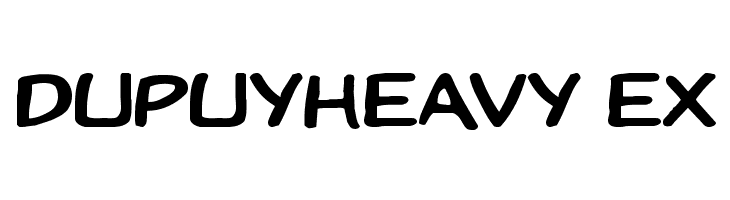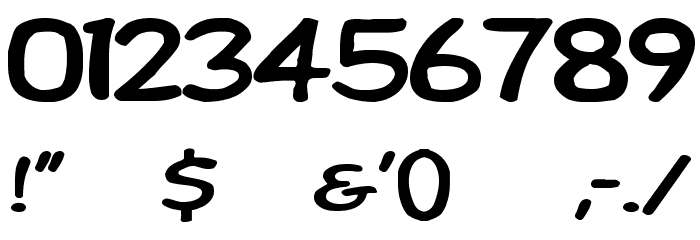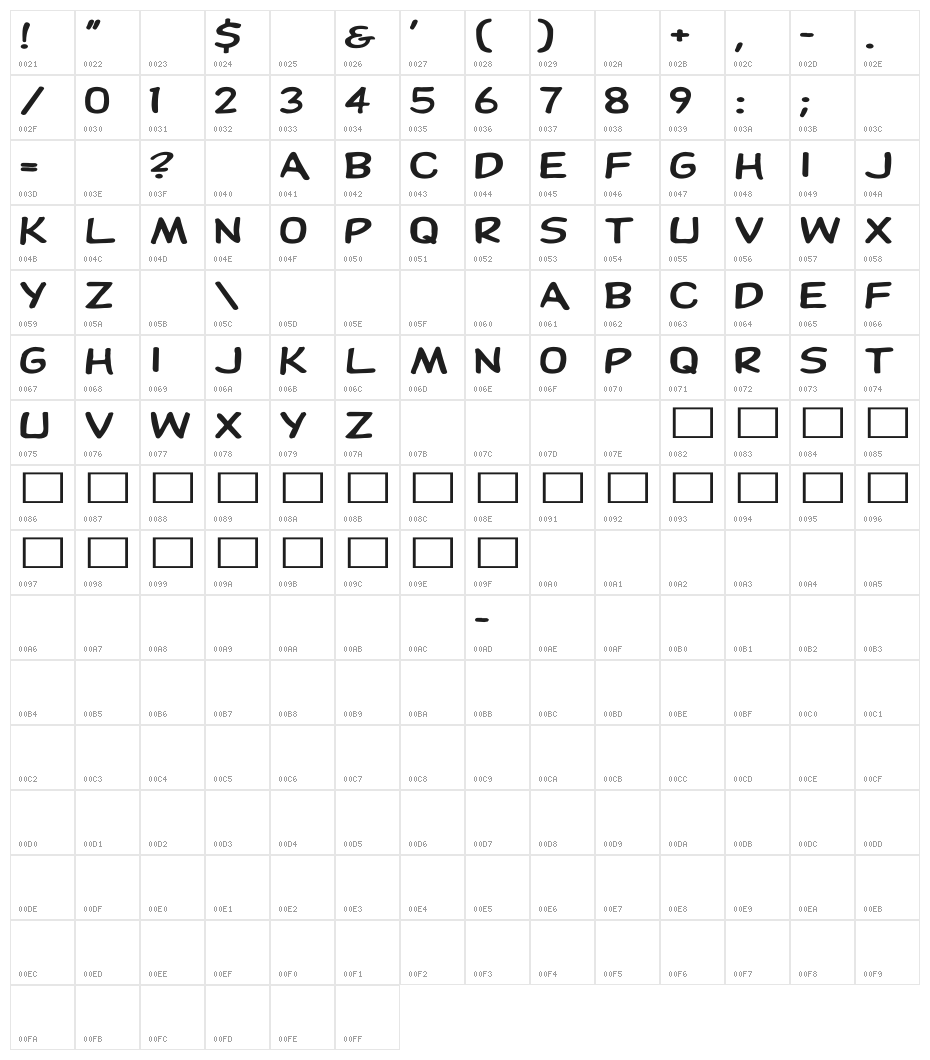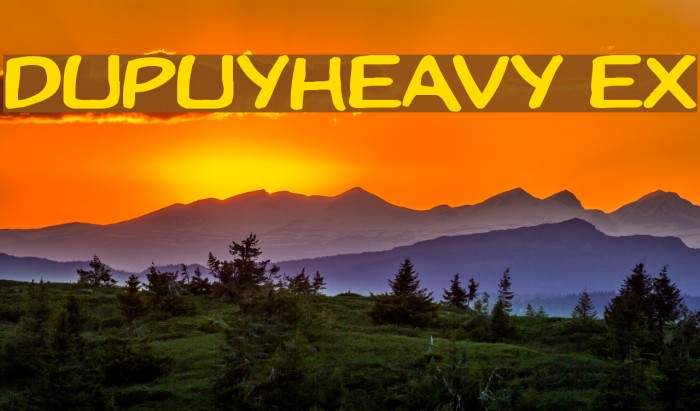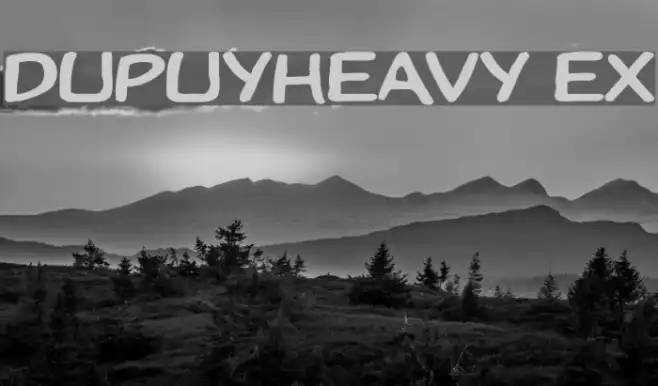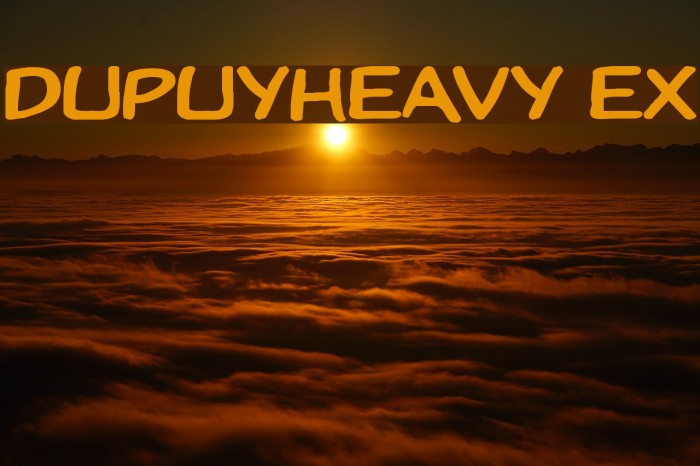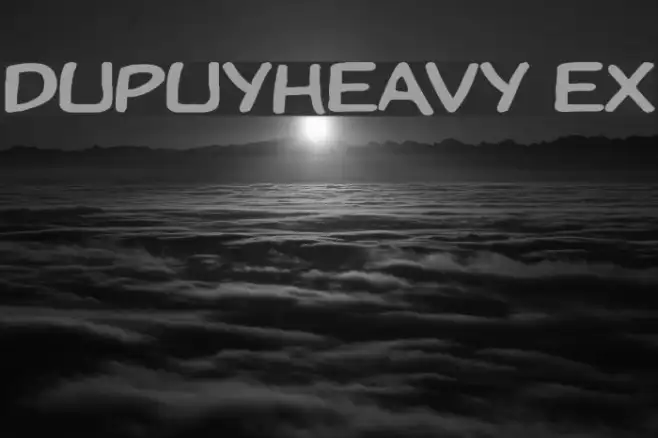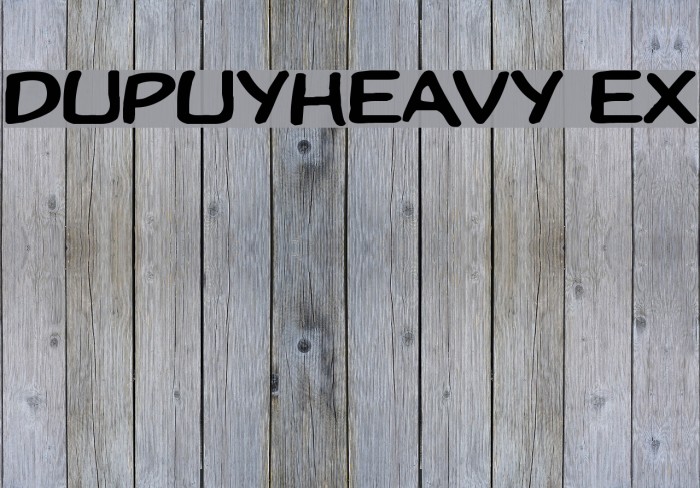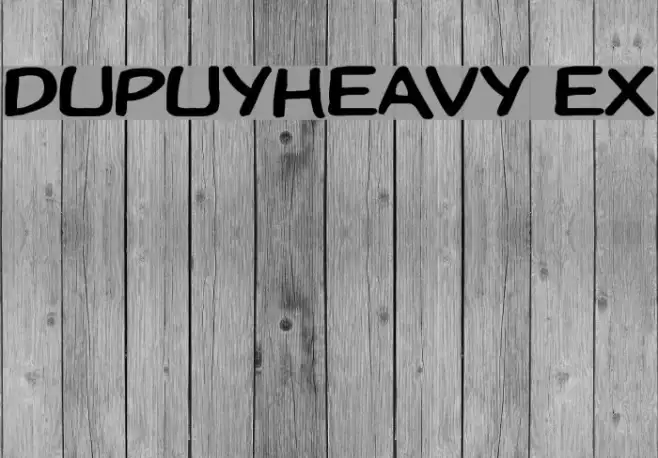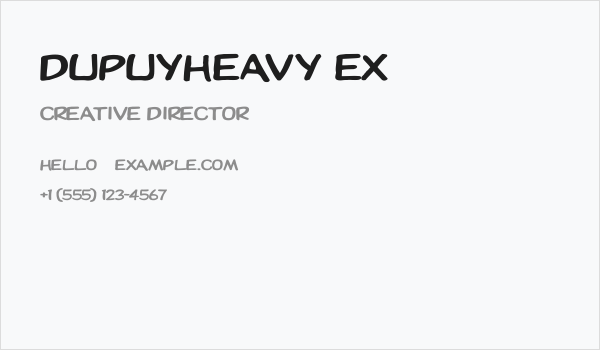
DupuyHeavy Ex Font
DupuyHeavy Ex Description
This font features a bold and playful style with rounded edges and a slightly irregular form that gives it a casual, handwritten feel. The characters are thick and substantial, providing a strong visual impact. The uppercase and lowercase letters maintain a consistent weight, contributing to a cohesive look. The numerals are equally bold, ensuring readability and uniformity across different uses. Special characters are designed with the same playful and robust characteristics, making them suitable for various creative applications.
| Proposed Projects | Ideal for children's books, playful branding, posters, and informal invitations. |